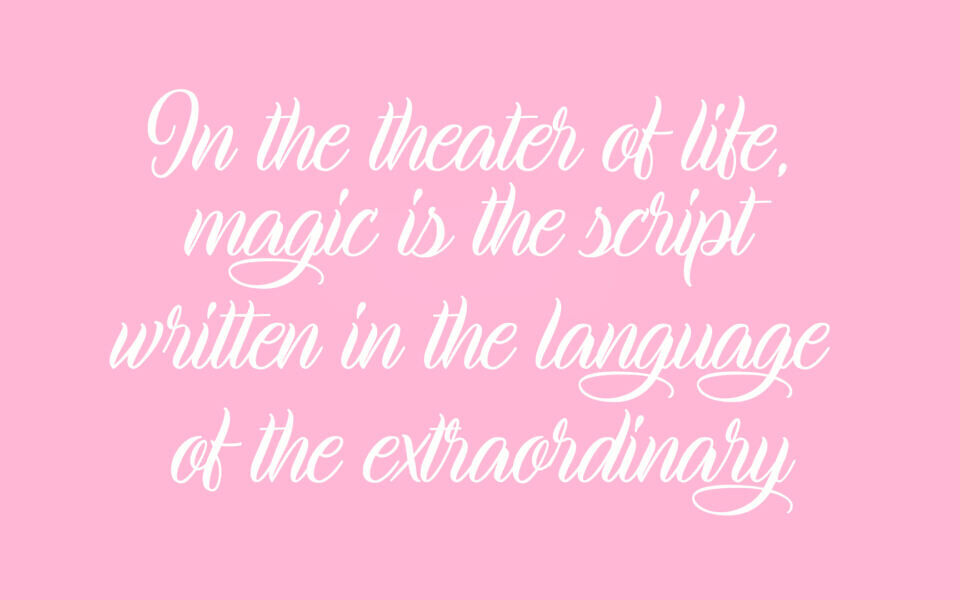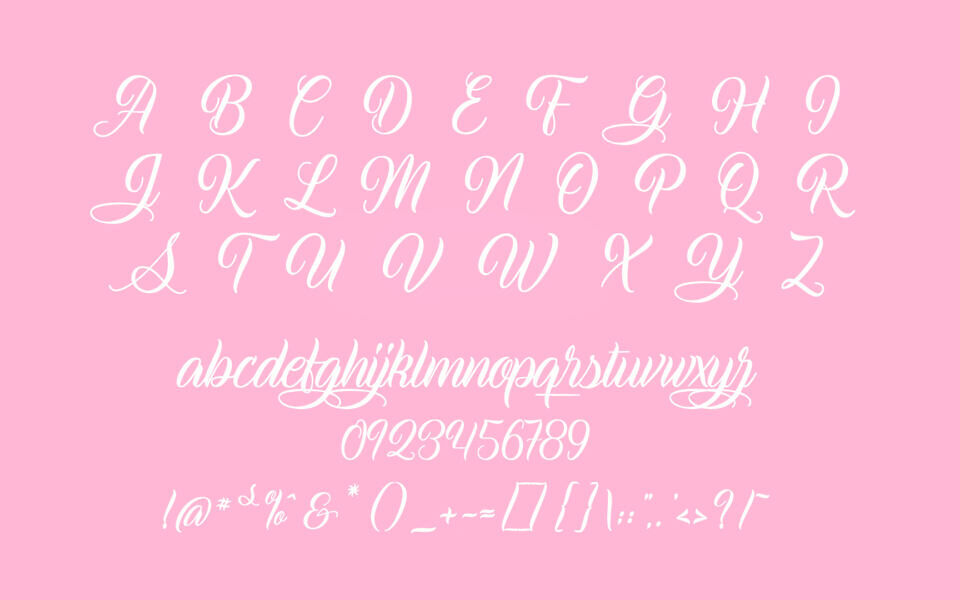
Aquatype Font
Aquatype, designed by Cat.B, is an elegant calligraphy script font perfect for adding a touch of sophistication to your projects.
With 203 glyphs, it offers a delicate sympa- thetic, flowing style ideal for personal use, such as wedding invitations, logos, and branding. Aquatype brings a romantic, handcrafted charm to designs!